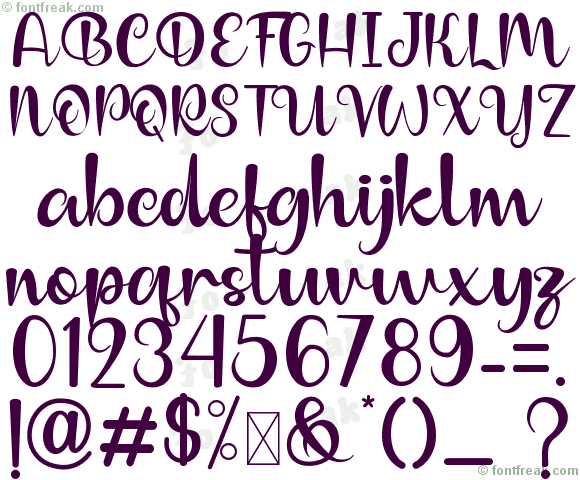
Anilupa
Anilupa by Eknoji Studio is a beautifully crafted handwritten font that embodies an inviting, personal touch. This font features a fluid, cursive style that captures the essence of natural handwriting, making it perfect for various creative projects. With its moderate stroke weight and soft curves, Anilupa offers a warm and friendly appearance, while maintaining excellent legibility. The balance between thin and thick strokes creates a gentle contrast that adds visual interest without overwhelming the reader. The spacing is well-considered, allowing for easy reading, which is especially beneficial in longer texts.
This versatile font is ideal for a range of applications. It shines in wedding invitations, where its elegant loops and flourishes can convey romance and sophistication. Additionally, Anilupa is a fantastic choice for crafting personalized greeting cards, capturing the heartfelt sentiments of special occasions. Its playful yet refined character makes it suitable for restaurant menus, where it can highlight unique dishes and create an inviting atmosphere. Furthermore, content creators and social media managers will find Anilupa perfect for eye-catching headlines and quotes that engage audiences effectively.
Targeted toward graphic designers, small business owners, and content creators, Anilupa is a font that can elevate any project. Whether you are designing a logo, creating marketing materials, or developing a website, this font adds a distinctive flair that resonates with viewers.
What sets the Anilupa font apart is its unique blend of elegance and approachability. Its handwritten style brings a personal touch to any design, making it relatable and memorable. For those interested in enhancing their creative toolkit, the Anilupa font free download offers an opportunity to incorporate this charming typeface into your projects, ensuring that your designs stand out with style and personality.